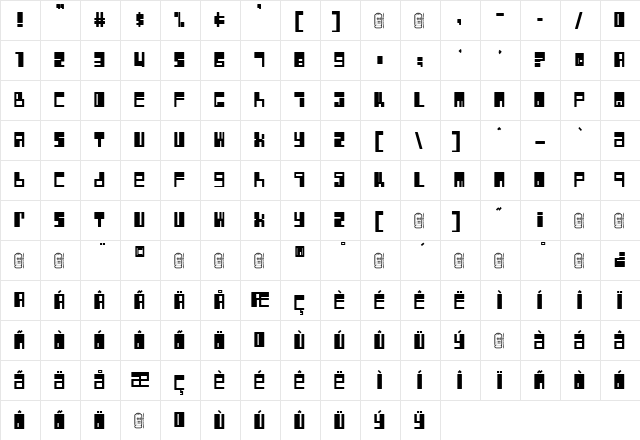
Rocket Regular
Design Context for Rocket Typeface
Rocket is a composed and adaptable typeface that performs quietly and consistently across a wide range of design contexts.
Pro Tip: Pair Rocket with a font of contrasting weight or personality to build a more expressive typographic hierarchy.